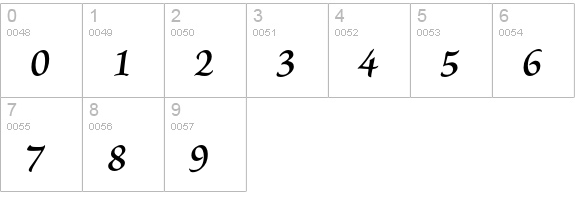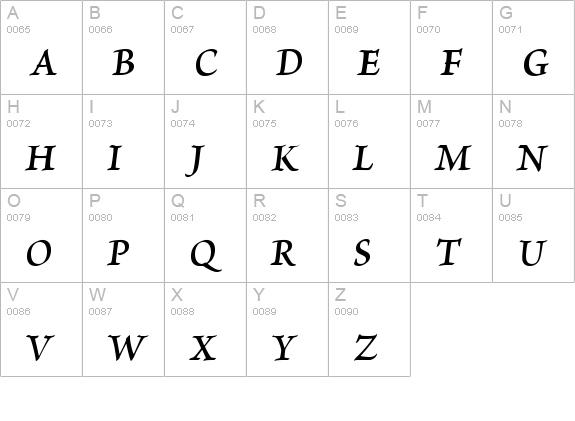
Brioso Pro Semibold Italic Caption is a sub-bold, structured, italic variant in the Brioso typeface family \xE2\x80\x94 well suited to sub-headlines and emphasised passages.
The Brioso Pro Semibold Italic Caption font is a dynamic and versatile typeface that exudes sophistication and elegance. With its strong, yet graceful appearance, this font is perfect for adding a touch of modernity to any design project. The italic styling adds a sense of movement and flair, making it ideal for capturing attention and conveying a sense of style. Best of all, this high-quality font is available for free download at FontsMarket.com. Whether you're designing a sleek website, crafting a striking poster, or creating eye-catching branding materials, the Brioso Pro Semibold Italic Caption font is sure to elevate your work to the next level. Don't miss out on this opportunity to enhance your designs with this elegant and professional typeface. Download it today and start creating beautiful and impactful designs effortlessly!